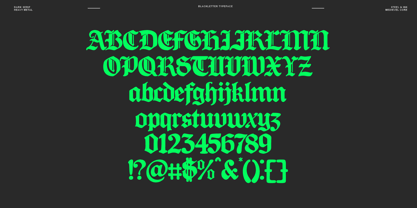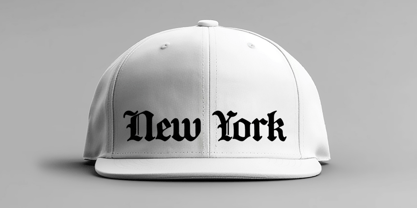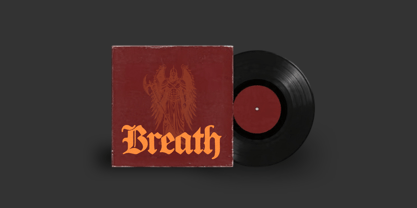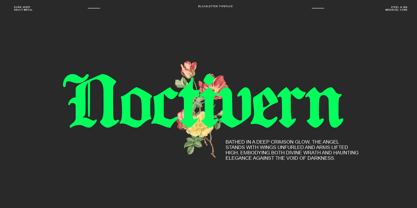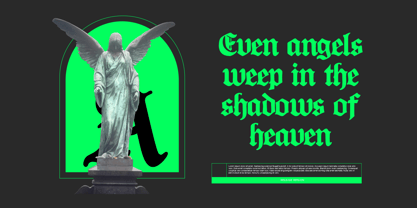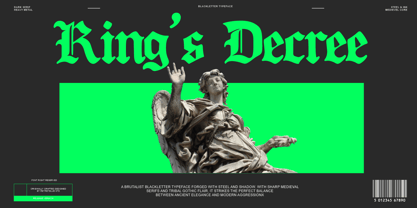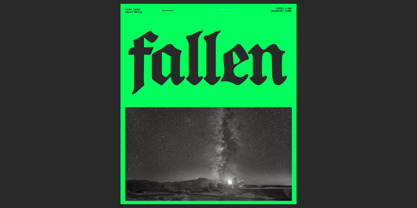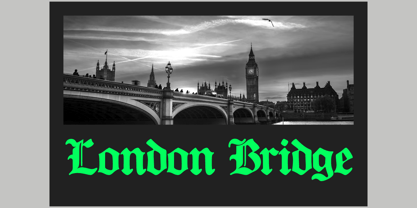
Kings Decree
The Kings Decree Font Family was designed by Nur Hasan and published by Reyrey Blue Std. Kings Decree contains 1 styles. More about this family
King’s Decree is a bold and commanding blackletter font inspired by medieval calligraphy, royal manuscripts, and gothic architecture. Designed to evoke the power of ancient kingdoms and timeless authority, this font brings a dramatic, elegant, and dark aesthetic to any design. With its sharp strokes, intricate details, and classic Old English style, King’s Decree font is perfect for logos, branding, tattoo designs, album covers, apparel, posters, and historical or fantasy-themed projects. Whether you’re creating a vintage look or a modern gothic statement, this typeface delivers a strong visual impact. This blackletter font includes uppercase and lowercase characters, numerals, punctuation, and multilingual support, making it versatile for both professional and creative use. King’s Decree is ideal for designers seeking a gothic font, medieval font, or Old English font that stands out with elegance and authority.